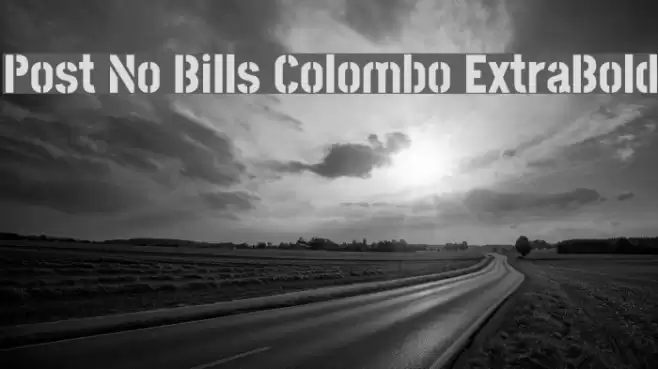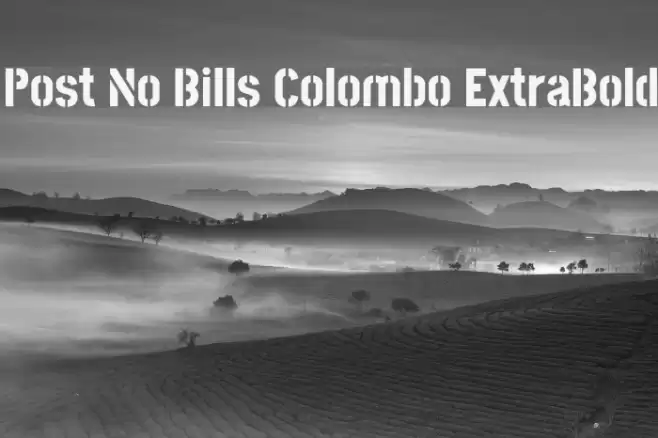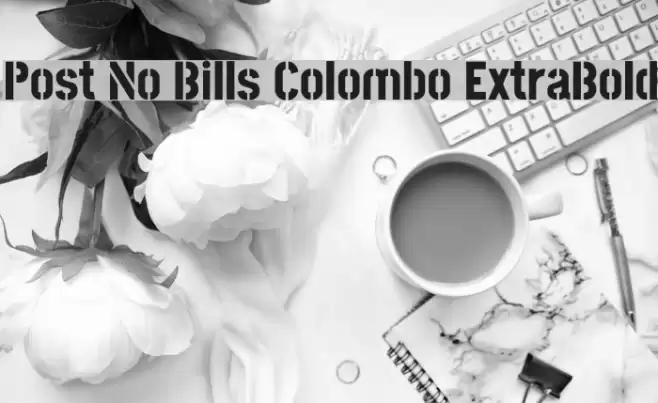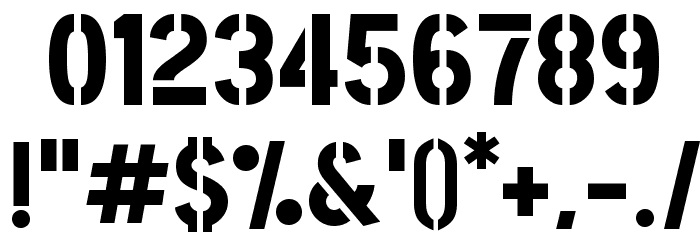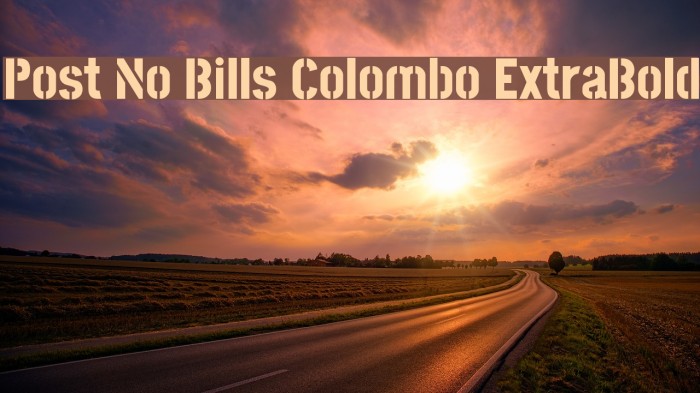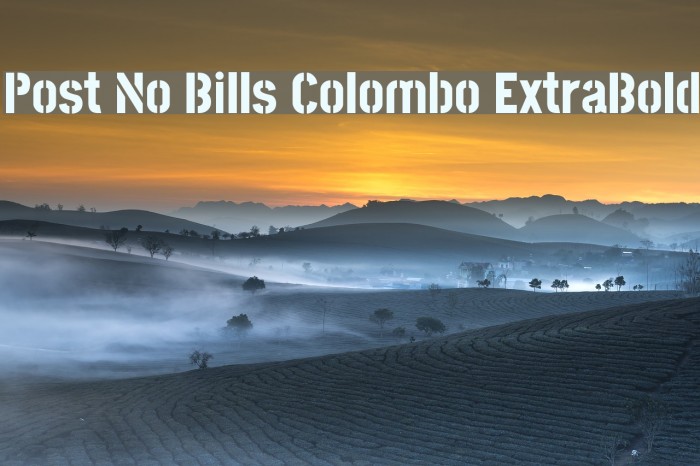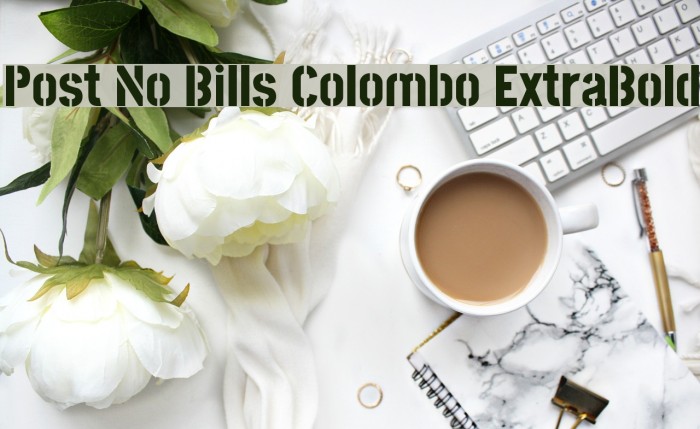
Post No Bills Colombo ExtraBold Font
Post No Bills Colombo ExtraBold Description
This font exhibits a bold and striking appearance, characterized by its thick, block-like letterforms. The uppercase and lowercase letters maintain a consistent weight, emphasizing a strong visual impact. The geometric shapes and sharp angles contribute to a modern and industrial aesthetic. The numbers and special characters follow the same robust style, ensuring uniformity across all glyphs. This font is designed to capture attention and convey a sense of authority and presence.
A bold, geometric font with a modern, industrial feel from Uncategorized fonts.